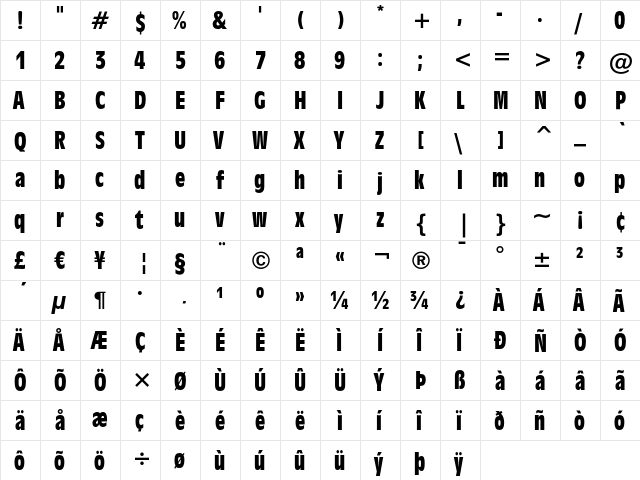
Incised 901 Bold Condensed Font Preview
Incised 901 Bold Condensed
Design Context for Incised 901 Typeface
Incised 901 is a composed and adaptable typeface that performs quietly and consistently across a wide range of design contexts. The heavy weight commands attention and anchors typographic hierarchies. The condensed width makes it efficient for tight spaces without sacrificing legibility.